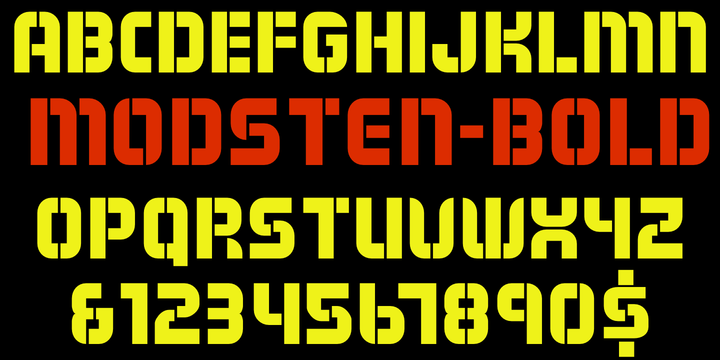
Modsten™
Designed by: Robert Schenk
Designed when: 1990
Contained in Category: Decorative & Display
Design owned by: Ingrimayne Type
Modsten
A modernistic stencil design with two sets of capital letters. The bold version was created first and the plain version was added as an afterthought.